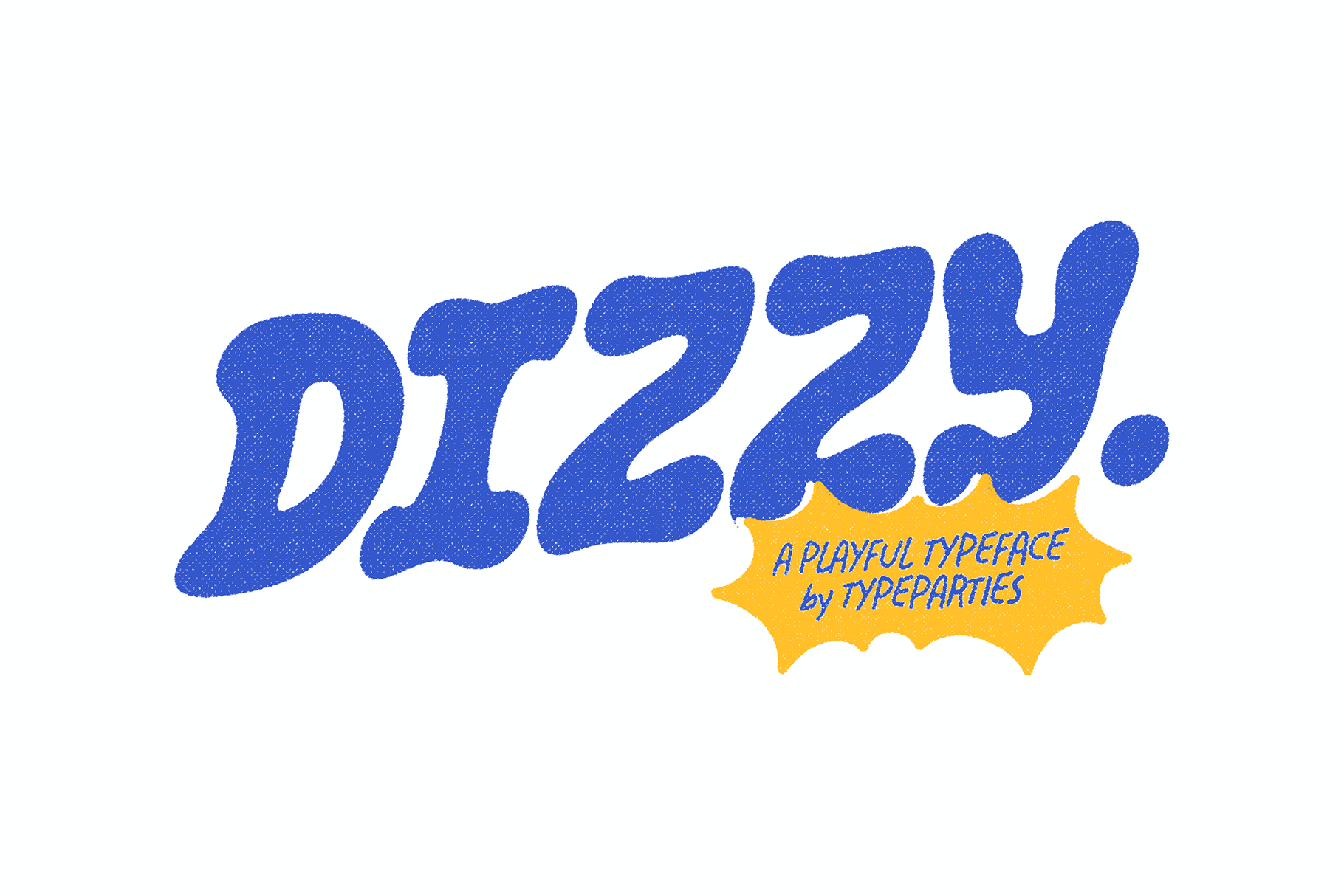
Dizzy Font
Fun, lighthearted, and whimsical design. The overall effect is one of friendliness and approachability, making it perfect for projects aimed at children, casual settings, or anything meant to evoke a sense of joy and fun.